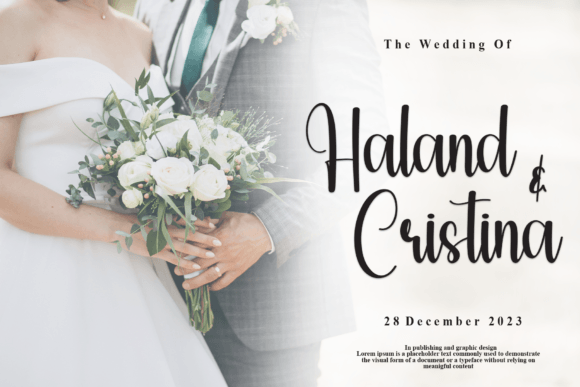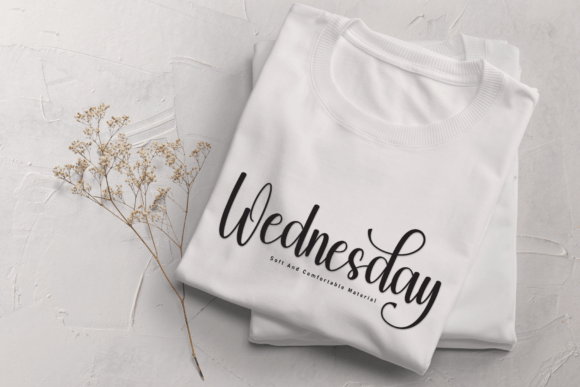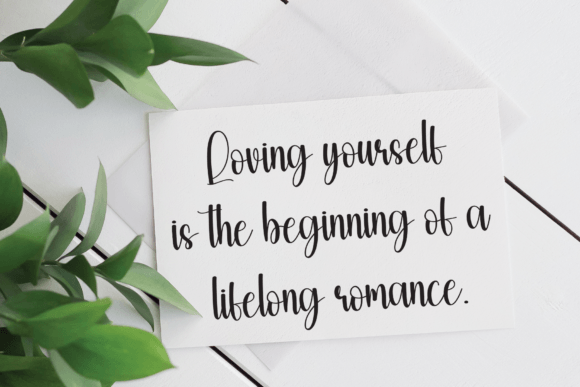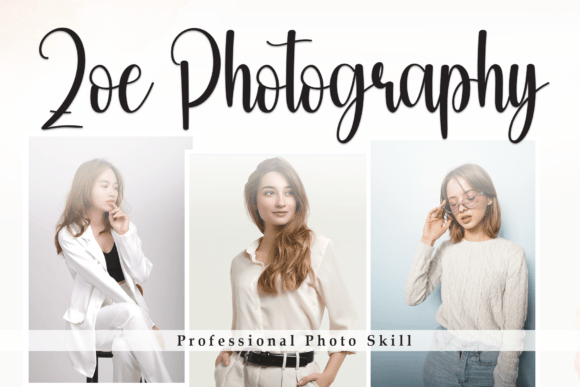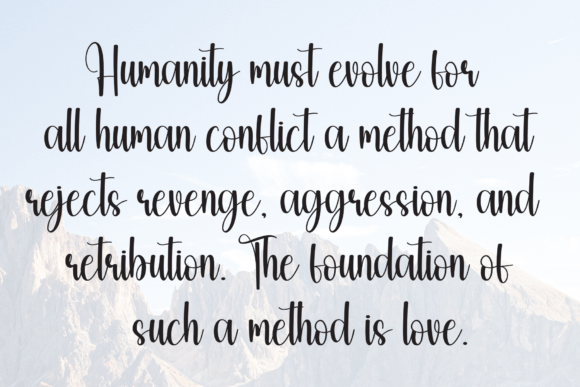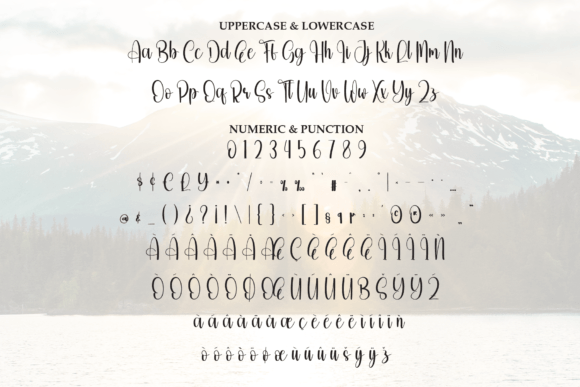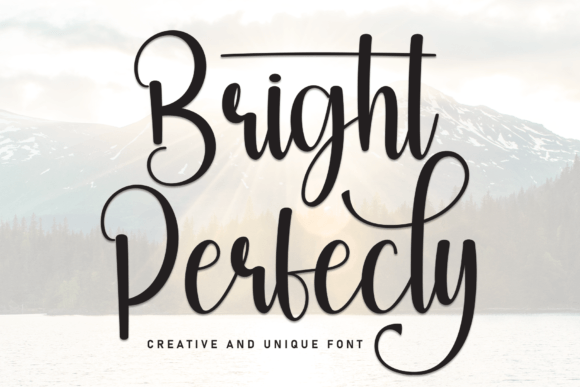
The Magic of Beautiful Typography: Introducing Bright Perfecly Font
Do you ever find yourself scrolling through Instagram, mesmerized by the beautiful typography and elegant scripts that adorn your favorite brands’ posts? You’re not alone. For many of us, the perfect font can be the difference between a good design and a truly stunning one. And that’s where Bright Perfecly Font comes in – a magical script font that’s been carefully crafted to add a touch of elegance to any creative project.
Whether you’re a seasoned designer or just starting out, Bright Perfecly Font is a valuable addition to your toolkit. With its versatility and sophistication, it’s perfect for everything from social media graphics to DIY calligraphy projects. And the best part? It’s easy to use, even for those who are new to font design.
Bright Perfectly Font Key Features
- Unique Characteristics: Features a unique blend of modern and classic design elements, with subtle flair and sophistication
Bright Perfectly Font Review
As a designer, I was excited to dive into the Bright Perfectly Font, and I’m here to share my honest thoughts.
- The font’s modern aesthetic is a great fit for contemporary designs, and it’s especially effective for headlines and titles.
- The font’s high x-height makes it easy to read, even at smaller sizes.
- The font’s versatility allows it to work well in both digital and print applications.
- The font’s limited character set may make it less suitable for extended text blocks or complex layouts.
- The font’s condensed nature can make it difficult to use in situations where space is limited.
- The font’s overall feel is somewhat generic, which may make it harder to stand out in a crowded design landscape.
While the Bright Perfectly Font has some great qualities, it ultimately feels like a safe choice rather than a bold statement. If you’re looking for a reliable, easy-to-read font for everyday use, Bright Perfectly might be a good fit. However, if you’re seeking a more distinctive or expressive font, you may want to look elsewhere.
Use Bright Perfectly Font to create eye-catching headlines and titles.
Combine it with other fonts for a unique and stylish look.
Use Bright Perfectly Font for:
Headlines and titles
Marketing materials
Branding and logos
Web design and development
Alternatives to Bright Perfecly Font
Lato is a sans-serif font that is highly legible and versatile. It’s suitable for both body text and headings. It’s a popular choice among designers due to its clean and modern look. In comparison to Bright Perfecly Font, Lato has a more subtle and understated feel, making it a great choice for designs where a more neutral tone is desired.
Montserrat is a sans-serif font that is highly legible and geometric. It’s designed specifically for use in urban environments, making it a great choice for designs that need to convey a sense of modernity and sophistication. In comparison to Bright Perfecly Font, Montserrat has a more angular and geometric feel, making it a great choice for designs that need to convey a sense of edginess.
Merriweather is a serif font that is highly legible and elegant. It’s a great choice for designs that need to convey a sense of sophistication and refinement. In comparison to Bright Perfecly Font, Merriweather has a more classic and traditional feel, making it a great choice for designs that need to convey a sense of timelessness.
Q: What is the recommended font size and line height for optimal readability with Bright Perfectly Font?
For optimal readability, we recommend using a font size between 12-18 points, with a line height of at least 1.2-1.5 times the font size. This will ensure that the text is clear and easy to read, while also maintaining a visually appealing design.